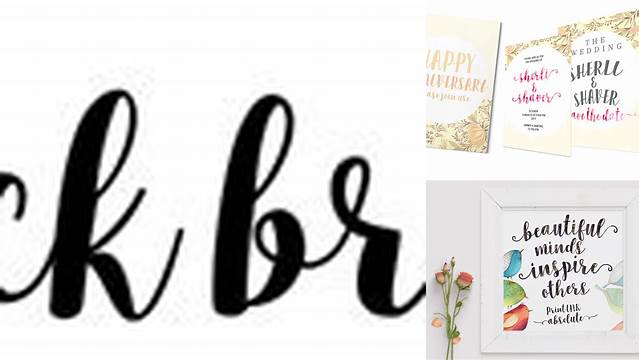
Hey guys! Are you on the hunt for that perfect calligraphic touch for your projects? Look no further! The Callove Script Regular font is a stunning choice, and in this guide, we're diving deep into everything you need to know about it, including where you can snag it for free. So, let's get started and add some flair to your designs!
What is Callove Script Regular Font?
When it comes to elegant typography, the Callove Script Regular font stands out. It's a beautifully crafted script font that exudes sophistication and charm. Think flowing strokes, graceful curves, and a touch of personality that can elevate any design. Whether you're working on wedding invitations, branding materials, or social media graphics, this font can add that extra touch of class. But what exactly makes Callove Script Regular such a popular choice among designers and creatives?
Callove Script Regular is designed to mimic the natural flow of handwriting, which gives it a personal and intimate feel. Unlike some overly stylized fonts, Callove Script strikes a balance between readability and artistic expression. Its clean lines and consistent letterforms ensure that your message is clear, while the subtle flourishes add visual interest. This versatility makes it suitable for a wide range of projects, from formal invitations to casual blog headers. The font's character set typically includes uppercase and lowercase letters, numerals, punctuation marks, and often a selection of ligatures and alternate characters. Ligatures are special letter combinations that create a more seamless and polished look, while alternates offer different stylistic options for certain letters, allowing you to customize the font to fit your specific needs.
Another key aspect of Callove Script Regular is its adaptability. It pairs well with a variety of other fonts, from classic serifs to modern sans-serifs, making it easy to incorporate into your existing design schemes. For example, you might use Callove Script for headings and titles, and then choose a clean sans-serif font for body text. This combination creates a visual hierarchy that is both pleasing to the eye and easy to read. When choosing a font to pair with Callove Script, consider the overall tone and style of your project. If you're aiming for a traditional or romantic look, a serif font like Garamond or Times New Roman might be a good choice. For a more contemporary feel, try pairing Callove Script with a sans-serif font like Helvetica or Arial. Experimenting with different font pairings is key to finding the perfect combination for your project. In addition to its aesthetic qualities, Callove Script Regular is also designed with usability in mind. It is typically available in various file formats, such as OTF (OpenType Font) and TTF (TrueType Font), which are compatible with most design software and operating systems. This ensures that you can easily install and use the font on your computer, regardless of your preferred software or platform. The OpenType format, in particular, offers advanced typographic features, such as ligatures, alternates, and swashes, which can further enhance the look and feel of your text. So, if you're looking for a font that combines elegance, versatility, and usability, Callove Script Regular is definitely worth considering.
Tips for Using Callove Script Regular Effectively